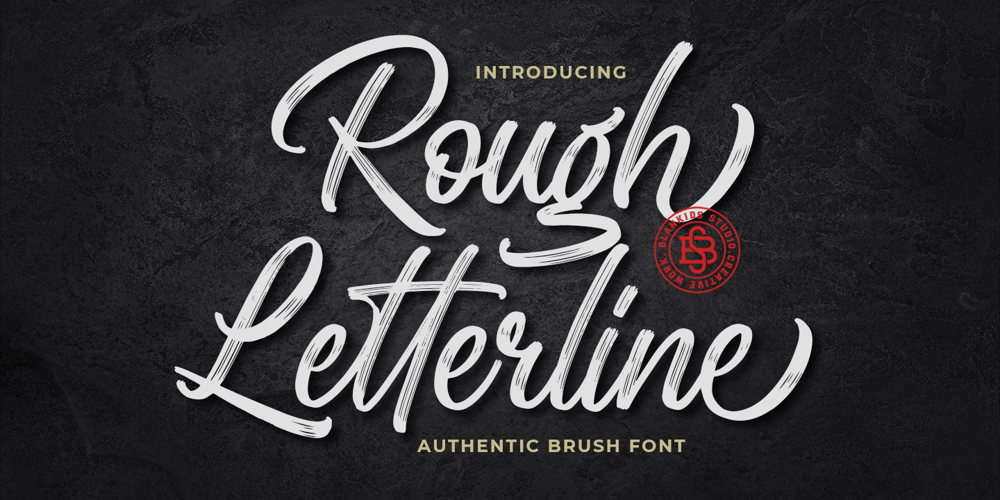
Rough Letterline Font Family was designed by Bangkit Tri Setiadi and published by Blankids. Rough Letterline contains 1 styles and family package options. Introducing of our new product the name is Rough Letterline Authentic Brush Font. Rough Letterline inspired by brush calligraphy style this font is a fun theme very good for display, tshirt design, craft, quote sign, logotype and etcFEATURES : Uppercase Lowercase Number Punctuation Multilingual PUA Encode Opentype